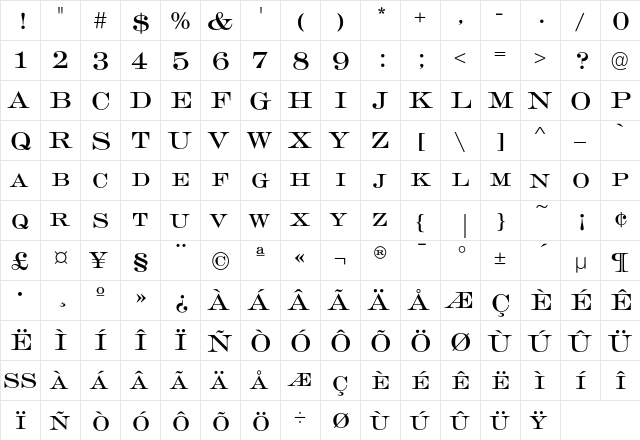
EngraversEF Roman
Design Context for EngraversEF Typeface
EngraversEF is a composed and adaptable typeface that performs quietly and consistently across a wide range of design contexts.